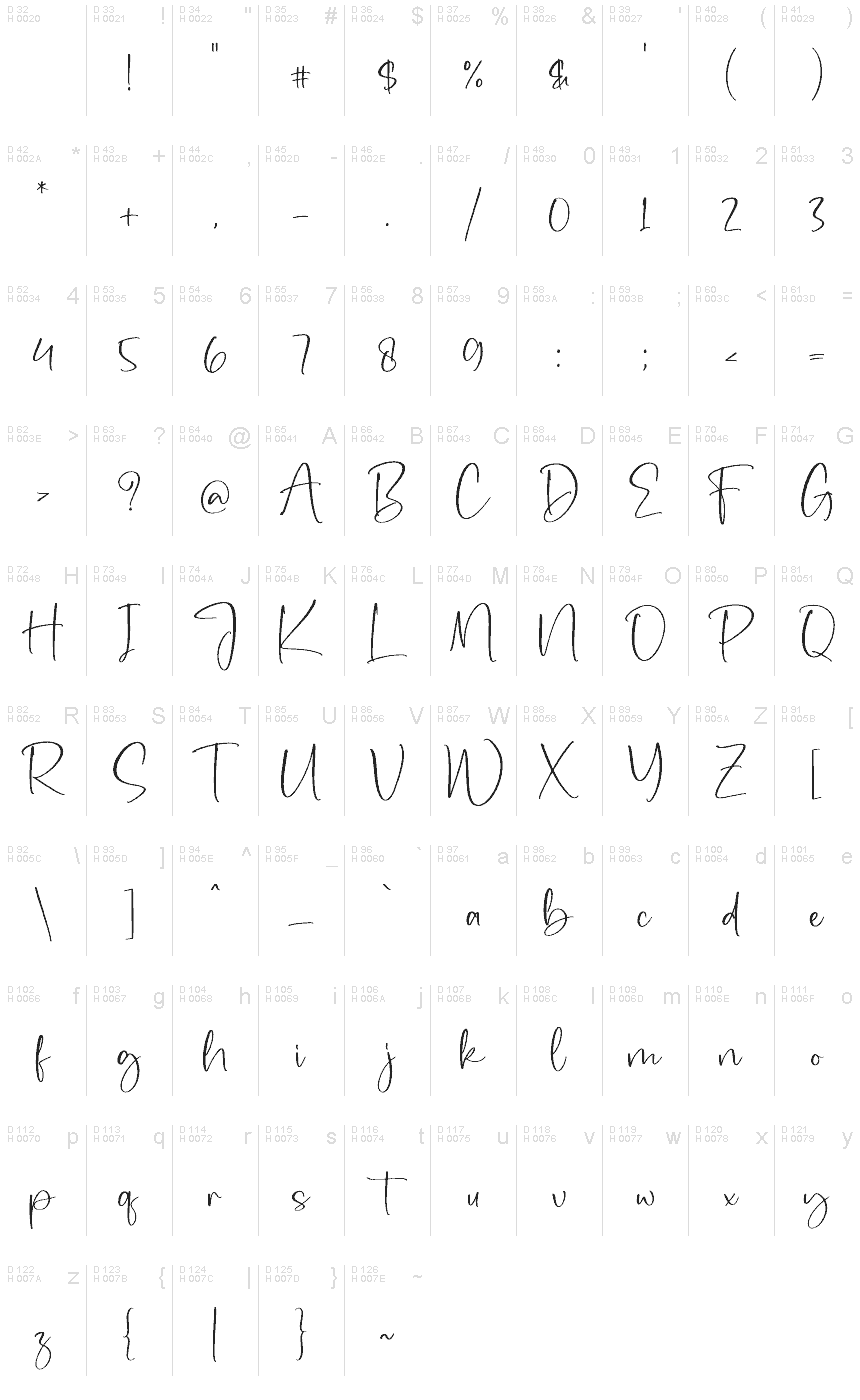
Dangella
Introducing Dangella, a fluid and beautiful handwritten font created by the ever creative Letterena studio and shared as free for personal use font.
This particular font contains lowercase letters, numbers, and punctuations. Its versatile features make it suitable for branding projects, book titles and covers, invitations, quotes and logos, and many other creative activities. It can also be mixed and matched with other fonts from the studio to come up with a unique style, or be used as a stand alone font for a modern classy design.